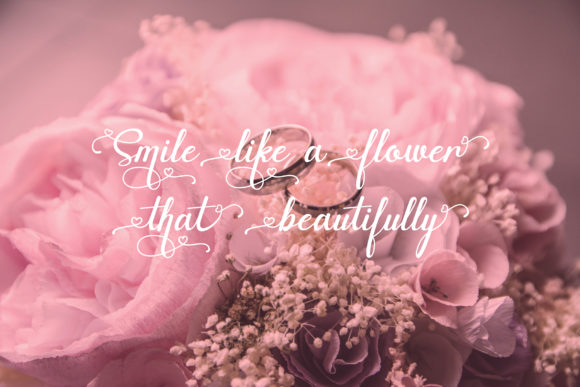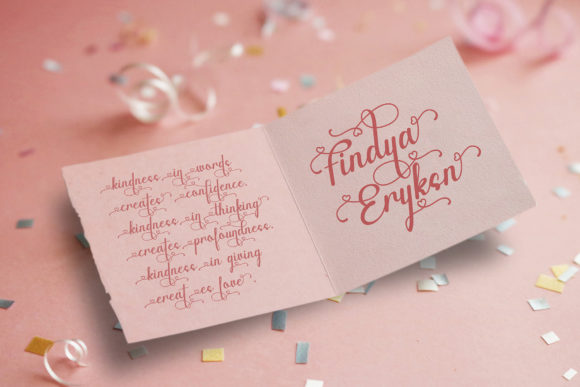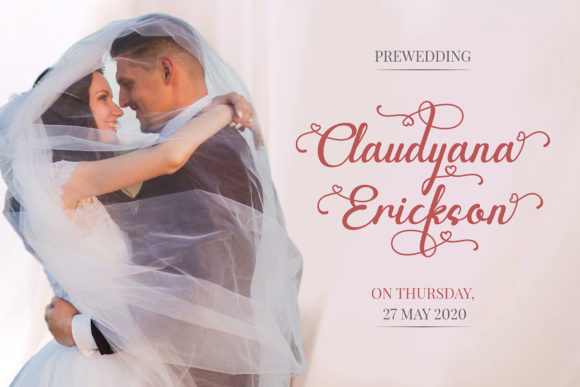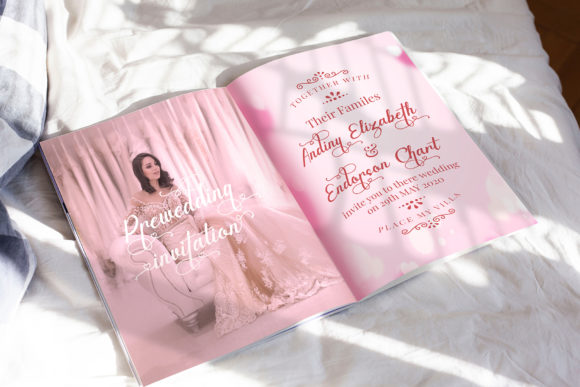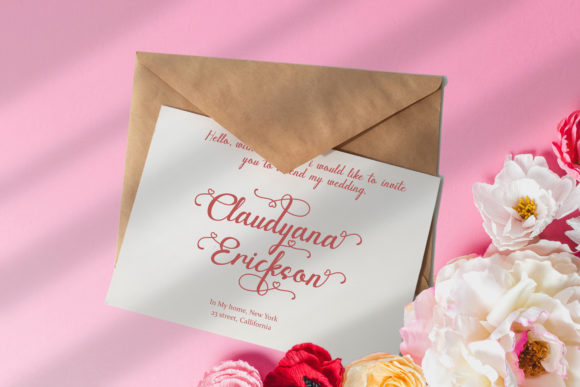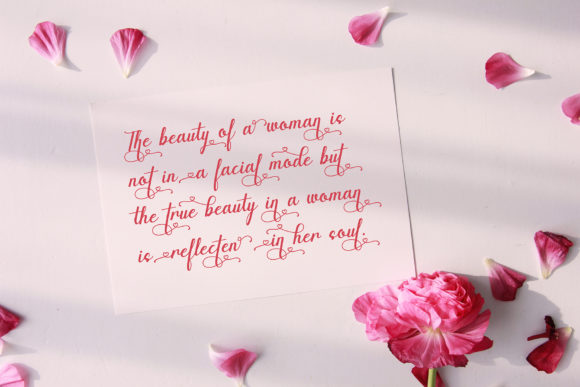
The Canding Love Font: A Timeless Script for Creative Projects
Have you ever been in the middle of a design project, and suddenly, you’re stuck on finding the perfect font? I recall a particularly frustrating experience while working on a client’s wedding invitation. The design was almost complete, but the font just wasn’t right. That’s when I stumbled upon the Canding Love font, and it completely transformed my design. In this article, we’ll explore what makes Canding Love a fantastic addition to any creative project.
A Personal Review of Canding Love
What I Love About Canding Love ✨
- 💫 Elegant and Classic Look: Canding Love is inspired by classic typography, bringing a touch of sophistication to any design.
- ✅ Versatility: This script font is perfect for headlines of all sizes and blocks of text with varying font sizes.
- 🌈 Multi-Platform Compatibility: Whether it’s for web, print, moving images, or anything else, Canding Love looks spectacular.
- 🔍 Attention to Detail: The font’s unique style and classic inspiration make it stand out in any design project.
While Canding Love is an excellent font, there are a few things to keep in mind:
- 🤔 Legibility at Small Sizes: Like many script fonts, Canding Love may be less legible at very small font sizes. It’s best used at larger sizes for maximum impact.
- ⚠️ Overuse: Due to its elegant nature, it’s easy to overuse Canding Love. Balance is key to making the most of this font.
The Inspiration Behind Canding Love
Canding Love was created with the intention of bringing a touch of classic elegance to modern designs. Its creator aimed to craft a font that could be used in a variety of contexts, from digital media to print, without losing its charm.
Q: What makes Canding Love unique?
A: Canding Love’s unique blend of classic inspiration and modern style makes it stand out. Its versatility and elegant look are key factors in its uniqueness.
Q: Is Canding Love suitable for body text?
A: While Canding Love can be used for blocks of text, it’s primarily designed for headlines and titles. For body text, consider a more readable font.